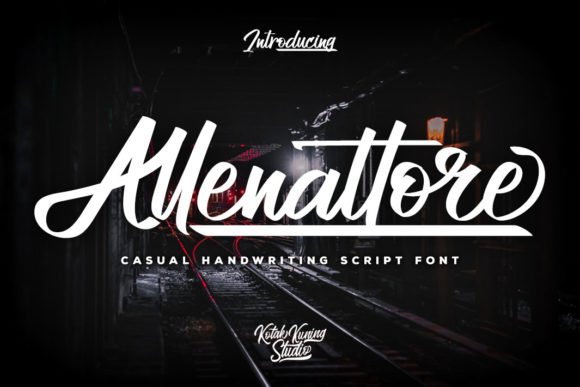
Adding a Touch of Handwritten Charm to Your Designs
Have you ever been stuck in a creative rut, struggling to find the perfect font to convey the emotion and personality behind your design? We’ve all been there – pouring over font libraries, searching for that elusive combination of style and sophistication. But what if I told you there’s a font that can add a touch of handwritten charm to your designs, instantly elevating them to the next level?
Meet Allenattore Font, a casual script font with a bold, handwritten style that’s perfect for adding a personal touch to your designs. Whether you’re creating a brand identity, a social media campaign, or a print project, Allenattore Font is the perfect companion to help you convey your message with confidence and style.
Allenattore Font Key Features
- Unique Characteristics: Allenattore Font features a unique blend of modern and vintage elements, with intricate details and ornaments.
Allenattore Font Review
I recently had the chance to work with the Allenattore Font, and I must say it’s a unique addition to any design project. ✨ One of the things that works well with this font is its ability to evoke a sense of elegance and sophistication, making it perfect for high-end branding and advertising. The font’s sleek lines and refined curves give it a high-end feel that’s hard to replicate with other fonts.
Another thing that works well is its versatility. ✨ The Allenattore Font comes in a range of weights, from light to bold, making it easy to adapt to different design contexts. Whether you’re creating a bold headline or a subtle body text, this font has got you covered.
While the Allenattore Font has its strengths, it also has some limitations that designers should be aware of:
- ⚠️ Limited character set: The font’s character set is limited, which may cause issues when working with non-ASCII characters or special characters.
- ⚠️ Not suitable for small text: Due to its intricate design, the font can become difficult to read at small sizes, making it less suitable for body text.
Overall, I think the Allenattore Font is a solid addition to any design project. While it may have some limitations, its elegance and sophistication make it a great choice for high-end branding and advertising. With its range of weights and versatility, it’s definitely worth considering for your next design project.
Tips for Getting the Most Out of the Allenattore Font
Use the Allenattore Font in combination with other fonts to create a unique visual identity.
Consider using the font in a bold or italic style to add emphasis to certain text elements.
The Allenattore Font is suitable for a variety of applications, including:
Logo design
Brand identity
Editorial design
Advertising and marketing materials
Alternatives to Allenattore Font
Comparison: Montserrat is more geometric and has a more condensed look compared to Allenattore Font. Montserrat is ideal for digital interfaces, while Allenattore Font is more versatile and suitable for a wider range of projects.
Comparison: Lato has a more rounded and friendly feel compared to Allenattore Font. Lato is ideal for projects that require a warm and inviting tone, while Allenattore Font is more suitable for modern and minimalist designs.